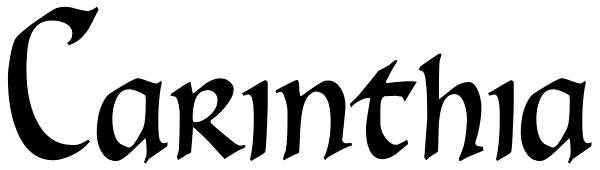
Carinthia
Carinthia is derived from the style of Roman calligraphy known as Rustica, but with some features of Roman uncial added to form a complete upper and lower case character set, including variant upper case characters with decorative spurs. The result...